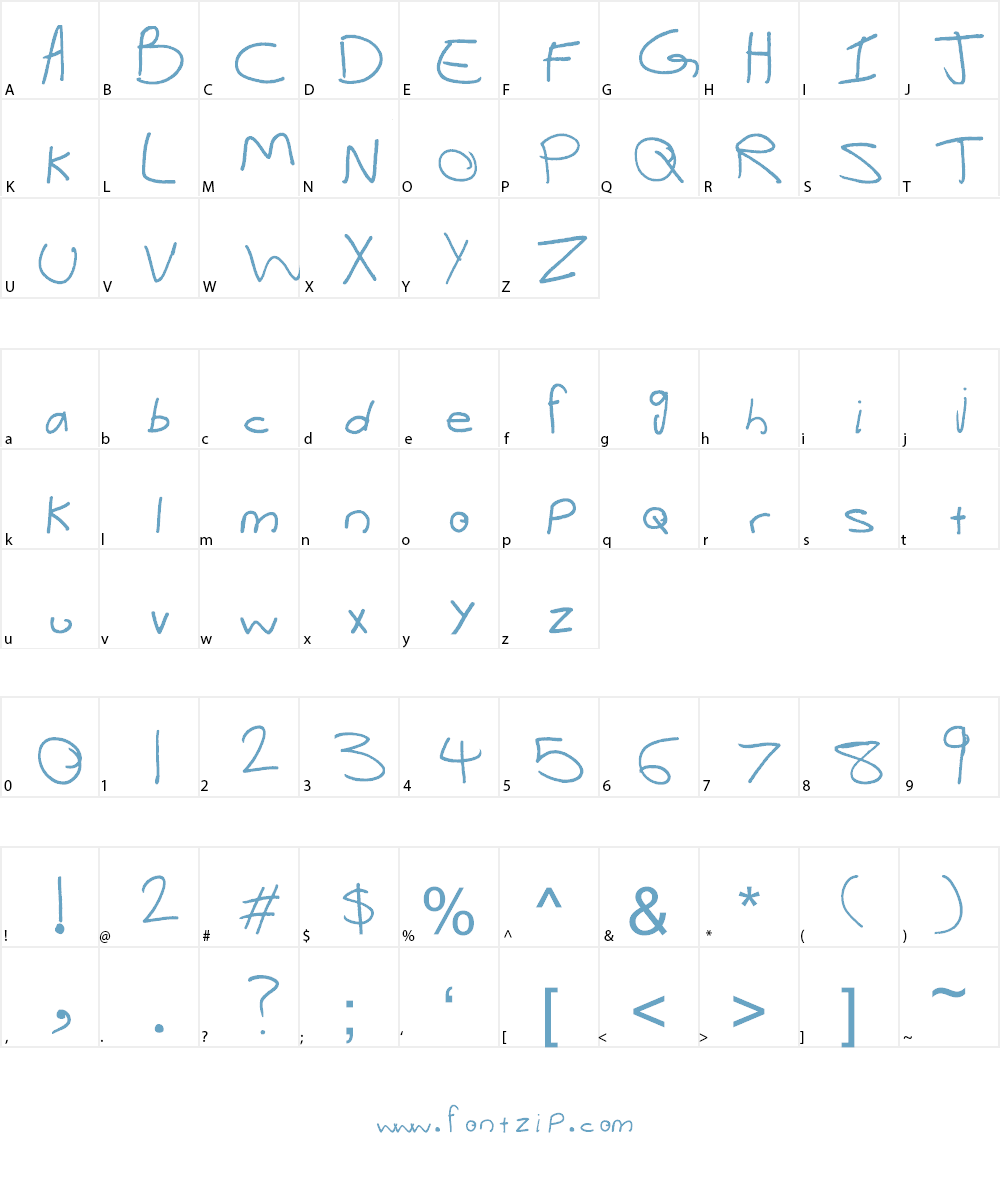
"Alix" is a true type font based on the handwriting of a friend
of mine. It was created using a program called 'Softy.' It
is a pretty good font, but if you are going to type numbers, it
is advised that you put a space between them.